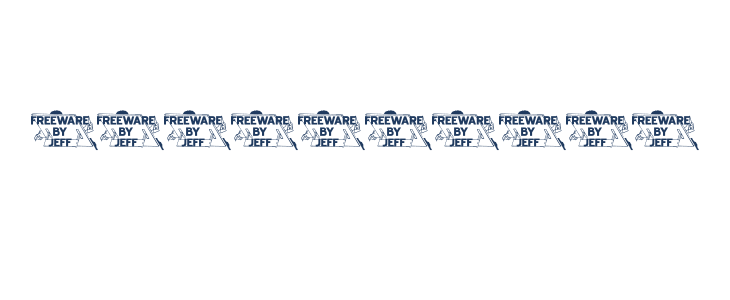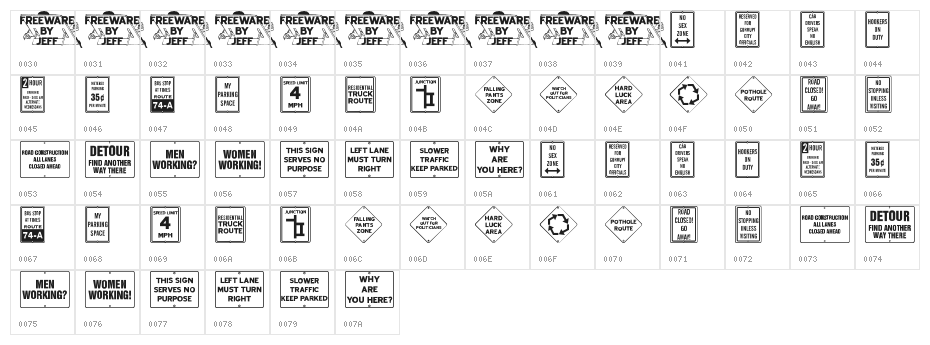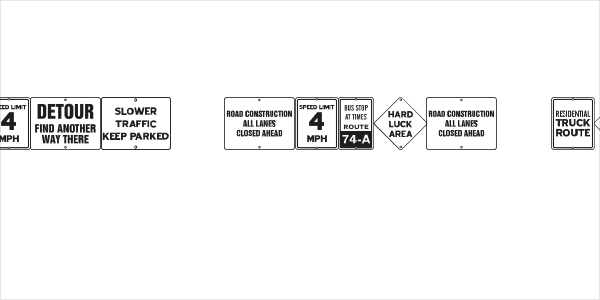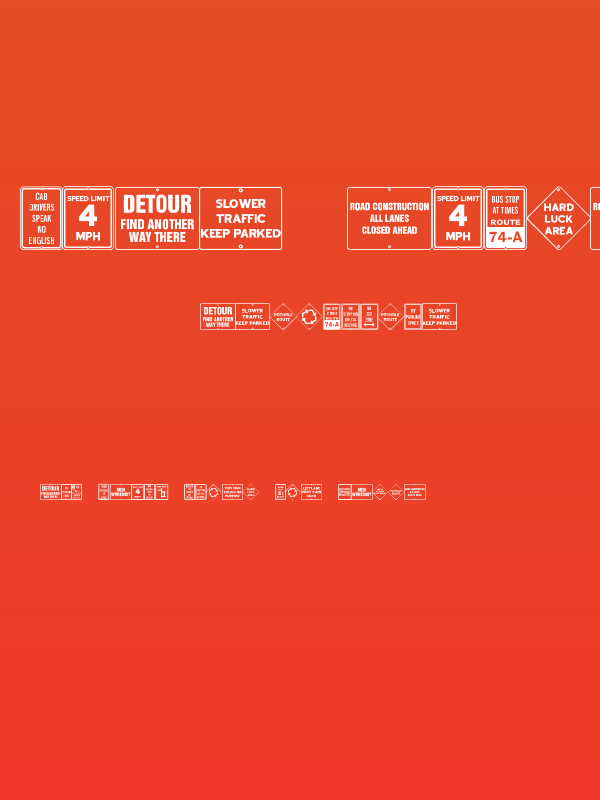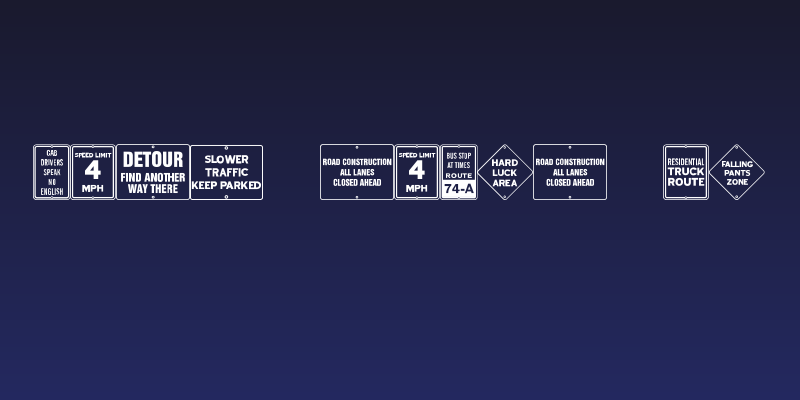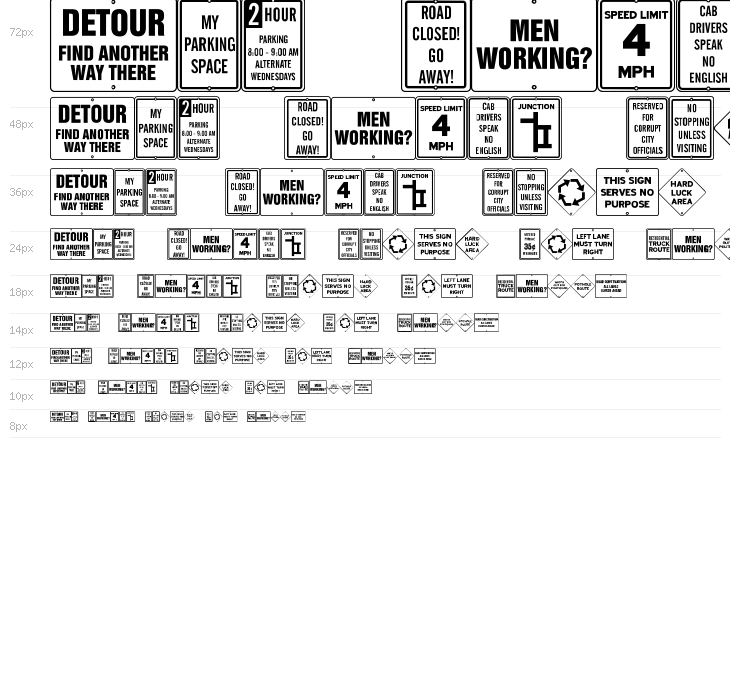
City Signs JL Font
City Signs JL Description
This collection of city sign designs features a variety of bold, clear, and highly legible fonts typically used for public signage. The characters are designed to be easily readable from a distance, with a focus on clarity and straightforwardness. The font style is utilitarian, with a no-nonsense approach that prioritizes function over form. The letters are uniformly spaced and sized, ensuring consistency across different signs. The use of capital letters throughout enhances visibility and impact, making the signs effective for conveying important information quickly. The design is reminiscent of traditional road and city signs, with a modern twist that incorporates humor and satire in the messages displayed.
| Use Case | Signage, Posters, Educational Materials |
| Proposed Projects | Ideal for creating mock city signs, educational materials on traffic safety, or humorous posters and graphics. |